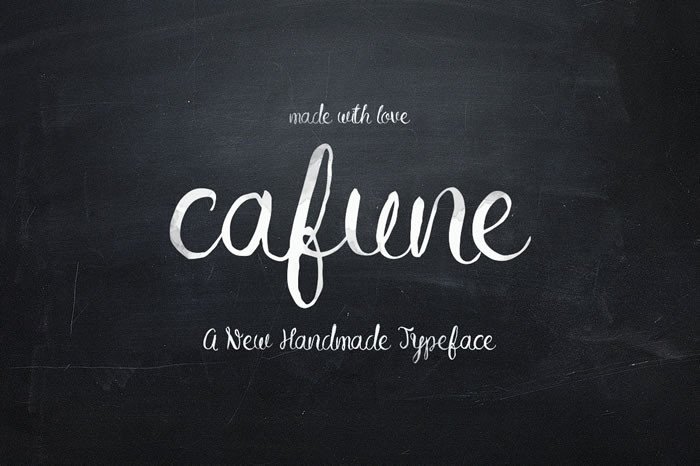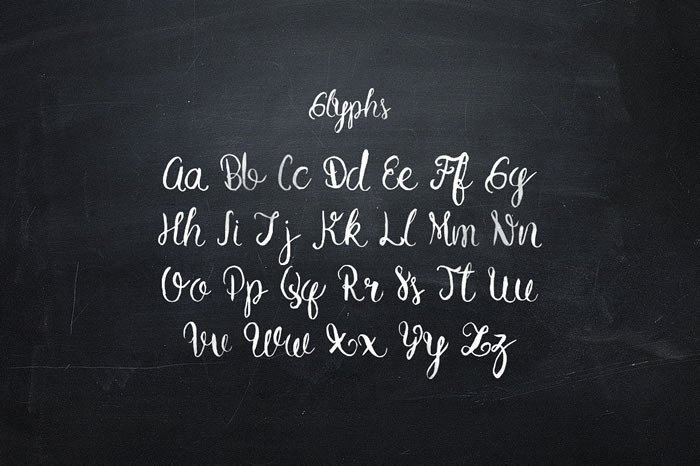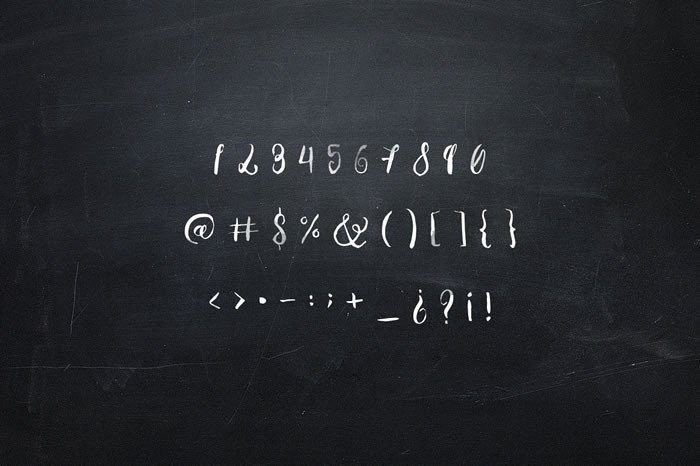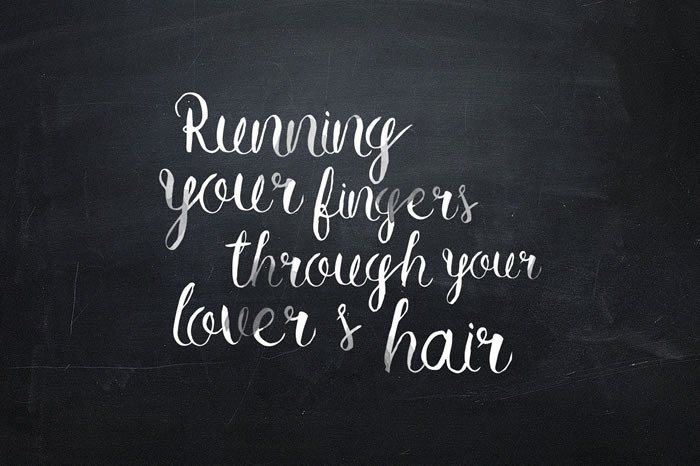
Cafune Font
About Cafune Font
Cafune is a amazing handmade typeface which can be used for various purposes such as wedding invites and envelopes, posters, logo’s and much more!